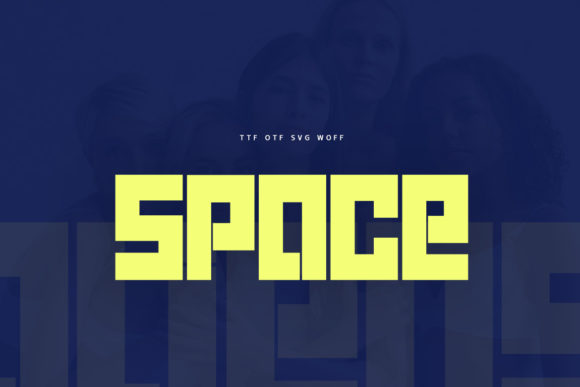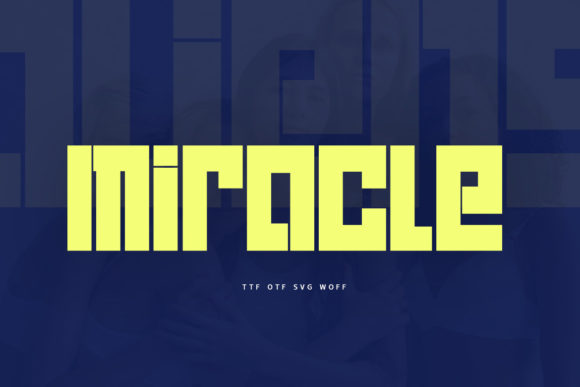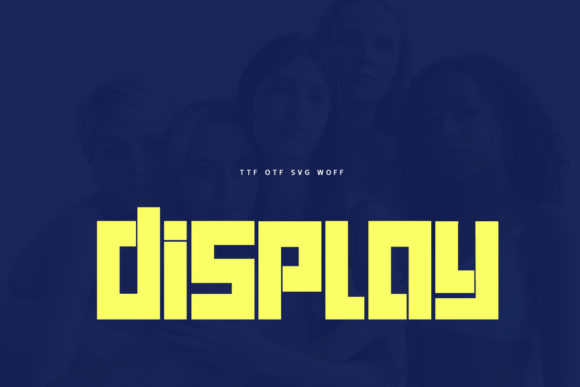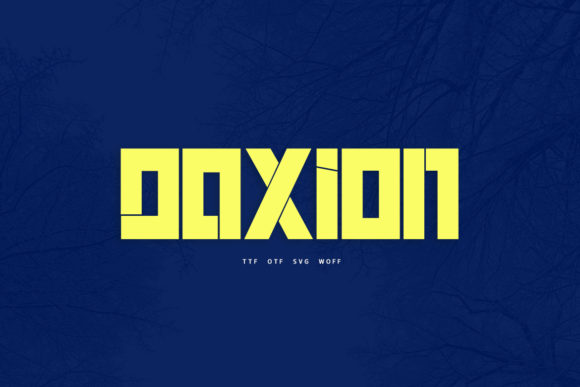
Daxion Font: The Ultimate Modern Display Font for Your Designs
In the world of typography, fonts play a crucial role in making or breaking a design. A font can elevate your project from ordinary to extraordinary, and that’s where Daxion Font comes in. This modern display font with a futuristic vibe is perfect for designers and crafters looking to add a youthful touch to their work. In this article, we’ll dive into the world of Daxion Font, exploring its features, benefits, and uses.
What is Daxion Font?
Daxion Font is a modern display font designed to make a statement. Its chunky lettered style and futuristic vibe give it an incredibly youthful feel that’s perfect for designs that require a bold and edgy look. Whether you’re working on a branding project, a website, or a social media graphic, Daxion Font is sure to turn heads.
Features of Daxion Font
So, what makes Daxion Font so special? Here are some of its key features:
- Modern and Futuristic: Daxion Font has a sleek and contemporary design that’s perfect for projects that require a cutting-edge look.
- Chunky Lettered: The font’s chunky letters make it perfect for display purposes, such as headlines, titles, and captions.
- Youthful Feel: Daxion Font’s youthful vibe makes it perfect for designs targeting a younger audience.
- Highly Readable: Despite its chunky design, Daxion Font is highly readable, making it perfect for body text and captions.
Benefits of Using Daxion Font
So, why should you use Daxion Font in your designs? Here are some benefits:
- Adds Visual Interest: Daxion Font’s unique design adds visual interest to your designs, making them stand out from the crowd.
- Perfect for Branding: The font’s modern and futuristic vibe makes it perfect for branding projects that require a bold and edgy look.
- Versatile: Daxion Font can be used for a variety of design projects, from websites and social media graphics to print materials and more.
Uses of Daxion Font
So, how can you use Daxion Font in your designs? Here are some ideas:
- Headlines and Titles: Use Daxion Font for headlines and titles to add a bold and edgy touch to your designs.
- Branding Projects: Use Daxion Font for branding projects, such as logos, business cards, and letterheads.
- Social Media Graphics: Use Daxion Font for social media graphics, such as Facebook posts, Instagram stories, and Twitter headers.
- Websites: Use Daxion Font for website headers, titles, and captions to add a modern and futuristic touch.
Tips for Using Daxion Font
Here are some tips for using Daxion Font in your designs:
- Use it Sparingly: Use Daxion Font sparingly to avoid overwhelming your design.
- Pair it with Other Fonts: Pair Daxion Font with other fonts to create a unique and interesting contrast.
- Keep it Consistent: Keep your font usage consistent throughout your design to create a cohesive look.
In conclusion, Daxion Font is a modern display font with a futuristic vibe that’s perfect for designers and crafters looking to add a youthful touch to their work. Its chunky lettered style and highly readable design make it perfect for a variety of design projects, from branding and websites to social media graphics and print materials. With its ease of use and versatility, Daxion Font is a great addition to any designer’s toolkit.
Get inspired by Daxion Font’s incredibly youthful feel and add this chunky lettered font to your designs to make them come alive!